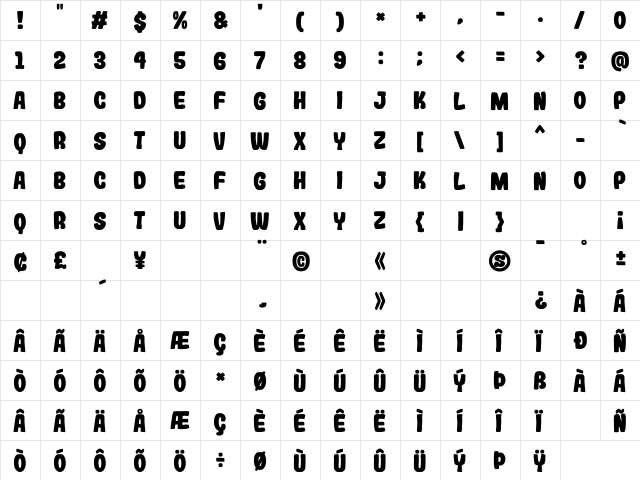
Gogono Cocoa Mochi Regular
Design Context for Gogono Cocoa Mochi Typeface
Gogono Cocoa Mochi is a composed and adaptable typeface that performs quietly and consistently across a wide range of design contexts.